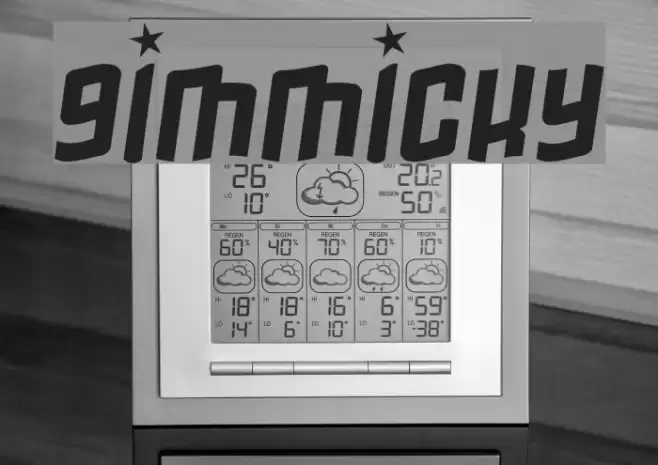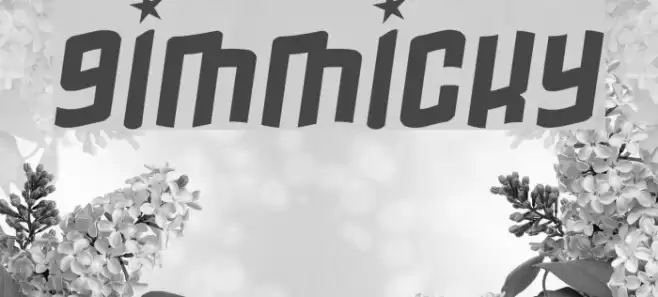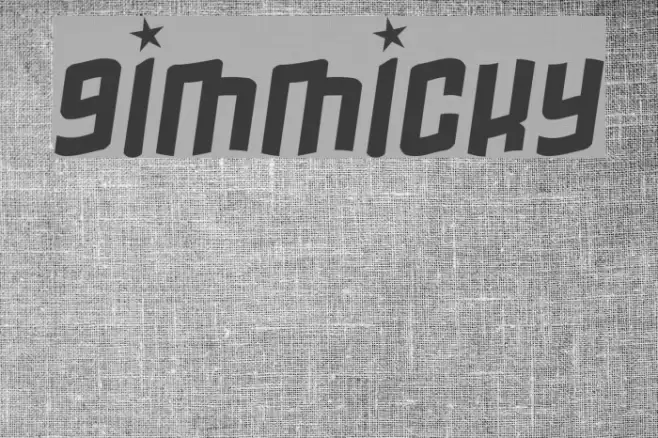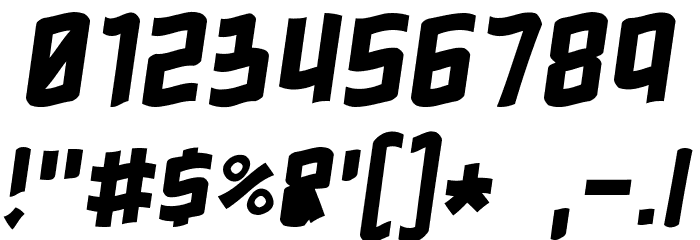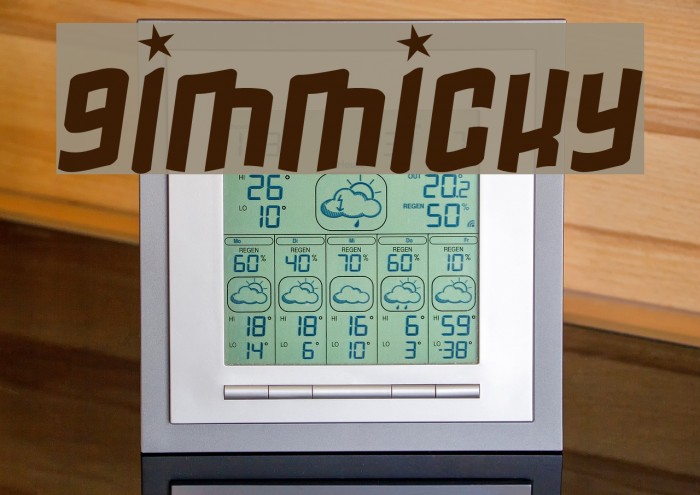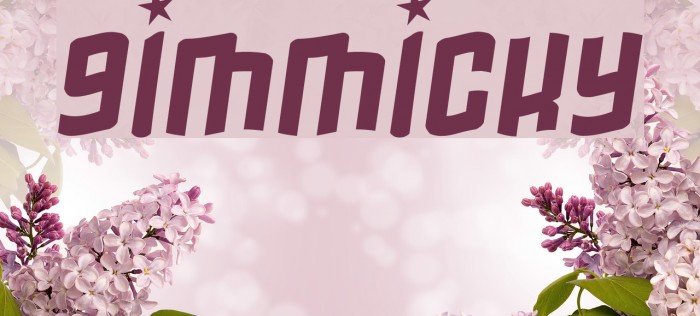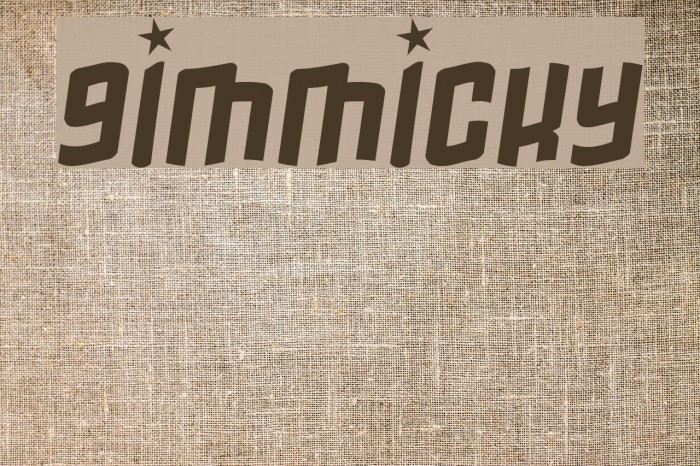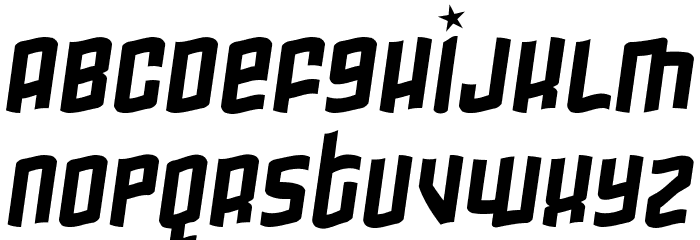
Gimmicky Font
Gimmicky Description
This font features a bold, dynamic style with a slight slant, giving it a sense of motion and energy. The characters are thick and robust, with a consistent stroke width that maintains legibility while adding a playful, modern twist. The uppercase and lowercase letters are distinct, with unique angles and curves that create a cohesive yet varied appearance. The numbers and special characters follow the same design principles, ensuring uniformity across all glyphs. This font's boldness and slight italicization make it stand out, ideal for attention-grabbing designs.
A bold, dynamic font with a slight slant, perfect for energetic designs from Decorative fonts.
- Proposed Projects: Ideal for sports branding, dynamic posters, video game titles, and any project needing a bold, energetic typeface.